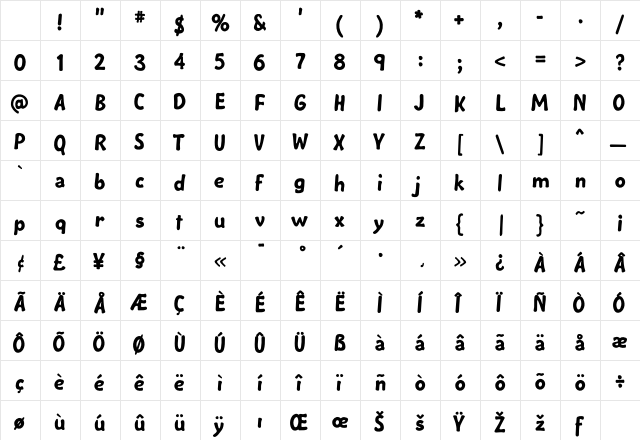
VampirBold is a composed and adaptable typeface that performs quietly and consistently across a wide range of design contexts. Its bold stroke weight gives it real presence on the page.